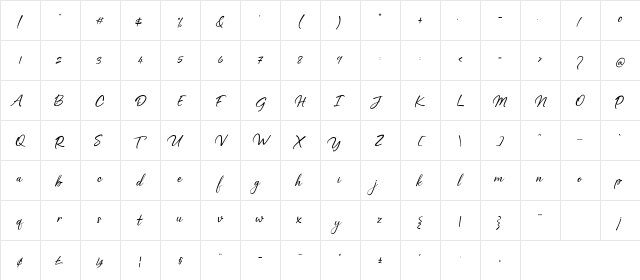
Rafiosa Regular
Designer: Gilar Studio
Design Context for Rafiosa
Rafiosa is a composed and adaptable typeface that performs quietly and consistently across a wide range of design contexts.